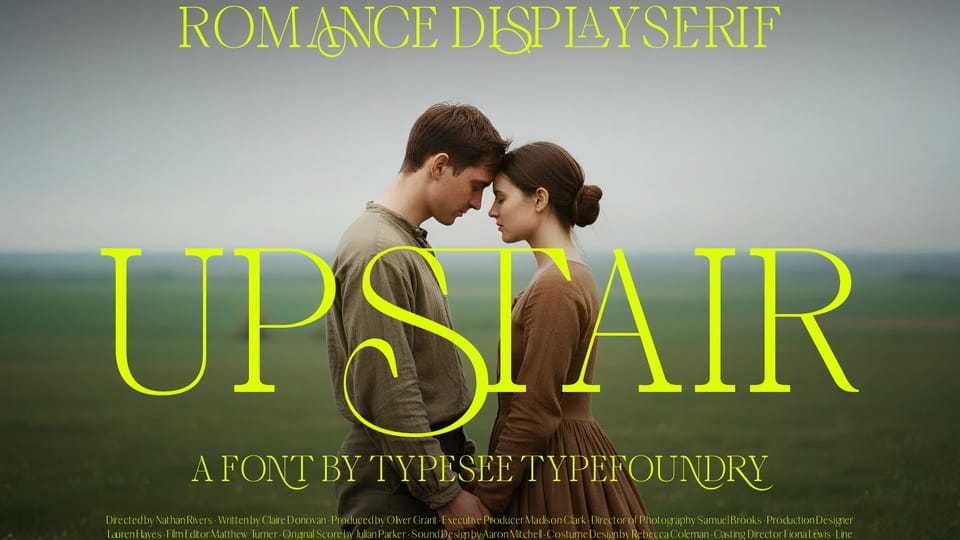
Download Upstair font, a modern romance display serif inspired by quiet emotions, soft moments, and cinematic storytelling. It blends classic serif elegance with subtle contemporary details.
Designer: Typesee Typefoundry